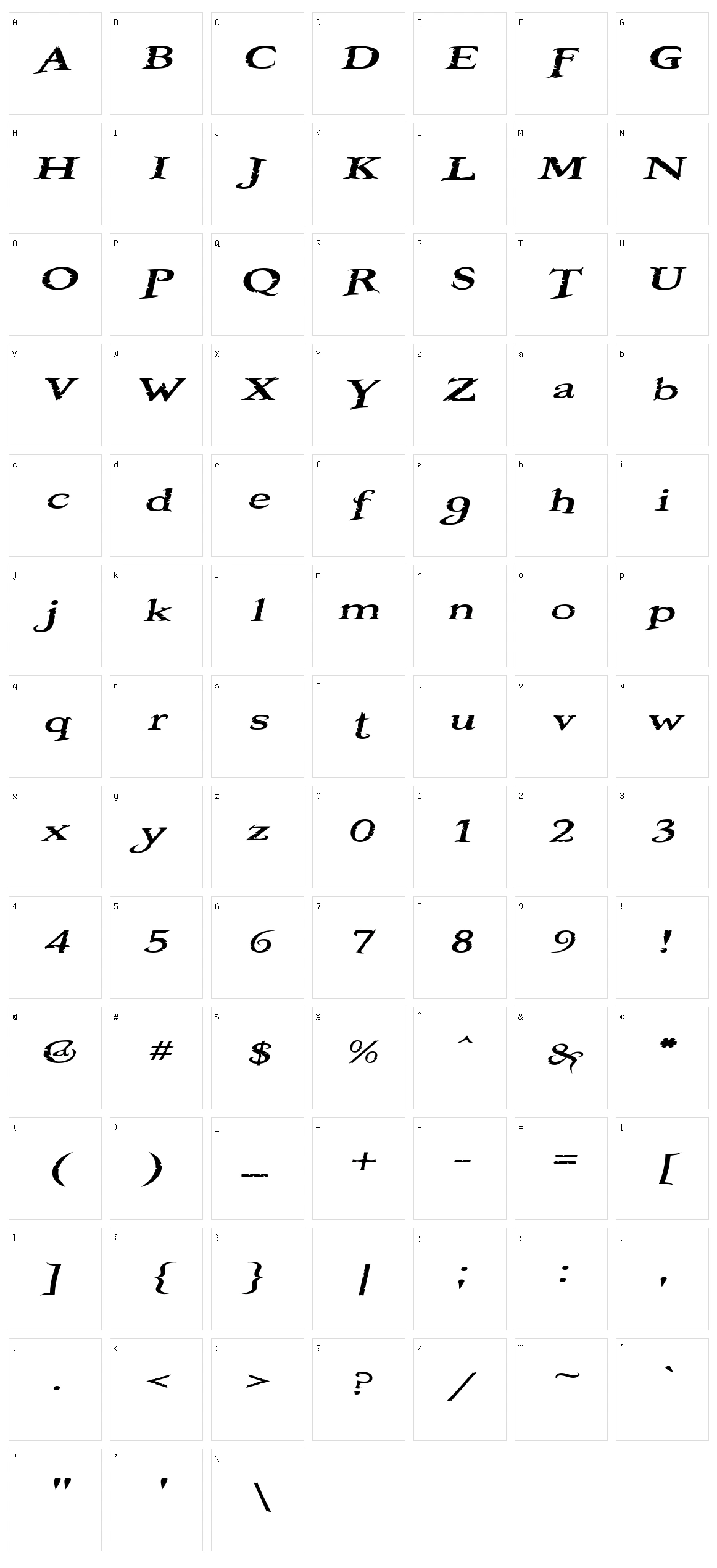
Booter
Ok, I am guilty!! I laid out plans and began working on this multiple master a while ago, maybe a couple months after my eyes first fell on Graham's magnificent Freebooter. The first time Graham heard about it was maybe about a month ago, when it was about 80% done. Graham's a good guy: he said he liked what I'd done with it so far, and gave me permission to proceed. You've gotta love him.
So here it is. Graham's expertly mischievous outlines turned into something that you can change with scrollers. Exercise your own gravitational pull. Stroke your own mouse. Slap your own ass. Do-it-yourself, do-it-yourself. Slinky, slinky, everyone loves a slinky.
It's been an awing experience going over the details of Graham's work. That F, that T, that g, I tell ya. It was a real pleasure layering these things back and fourth in Fontlab.
BooterMM has two axes: one for width and one for slant. The width one goes from 75% to 150% of the original Freebooter, and the slant one goes from the original straight-up to a maximum of 24 degrees, naturally passing by the original obliquing of 18-19 degrees.
I also generated 9 single fonts for the true type users who do not want to deal with multiple masters. The styles and names of true type weights reflect main multiple instance axis markers in this fashion: One means 1000, Five means 500, and Zero means 0, with the width axis marker always preceding the slant axis marker in the font name. For instance: Booter One Five is actually BooterMM with the width axis set to 1000 and the slant axis set to 500 (maximum width, halfway slant), and Booter Zero One is BooterMM with the width axis set to 0 and the slant axis set to 1000 (minimum width and maximum slant). Of the true type weights the closest to the original Freebooter should be the Five Zero weight, and the closest to the original Freebooter Italic should be the Five Five weight. Not the same, but relatively close.